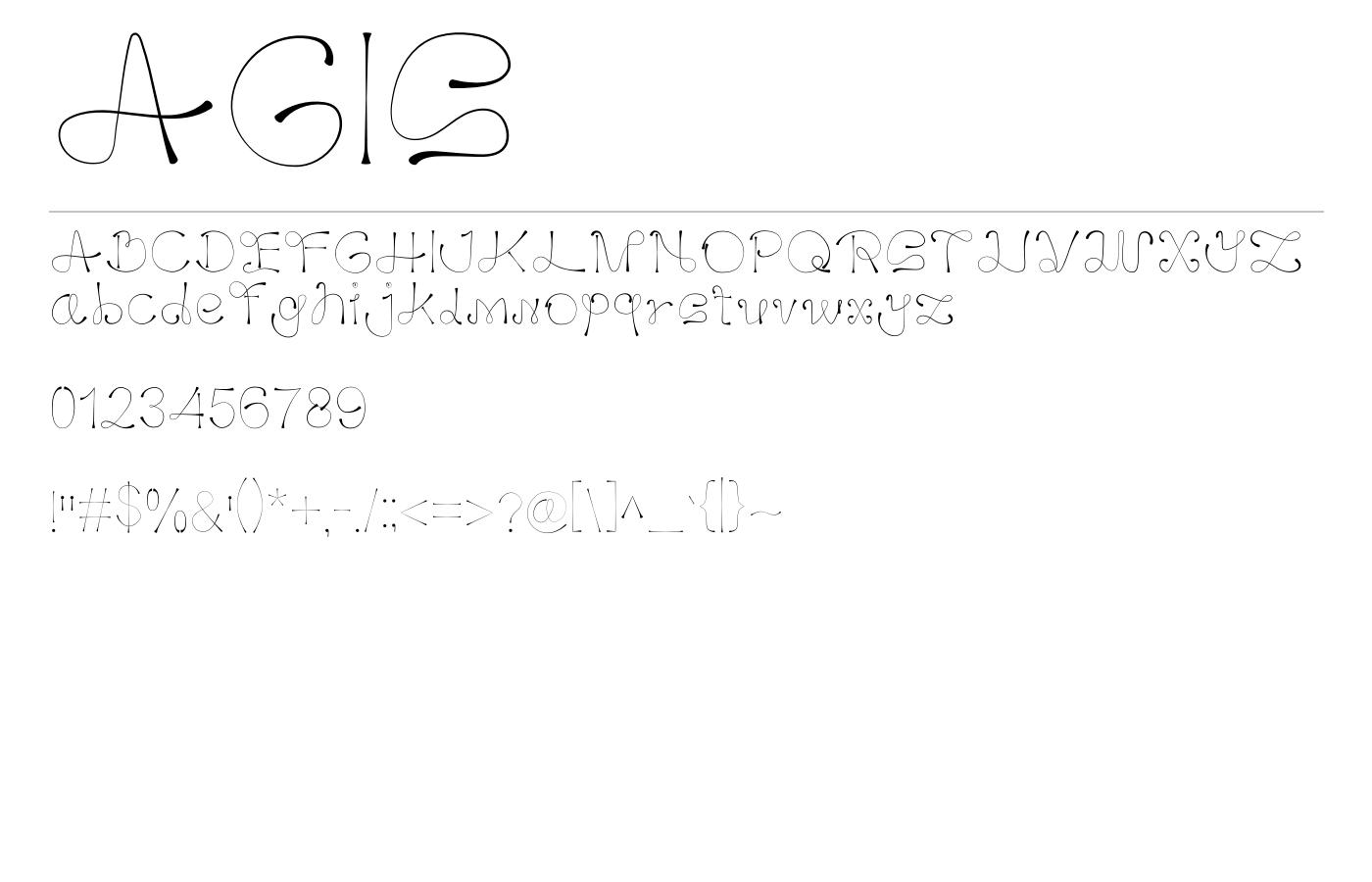
AGIS is a delicate, elegant serif font with fine, flowing strokes and whimsical, decorative details that give it a handcrafted, artistic feel. Its light weight, high contrast between thin and slightly thicker lines, and playful curls make it ideal for creative branding, invitations, or upscale editorial projects seeking a unique and sophisticated touch. This font works best in large display settings where its intricate character shapes can be fully appreciated.
AGIS Font
About AGIS Font